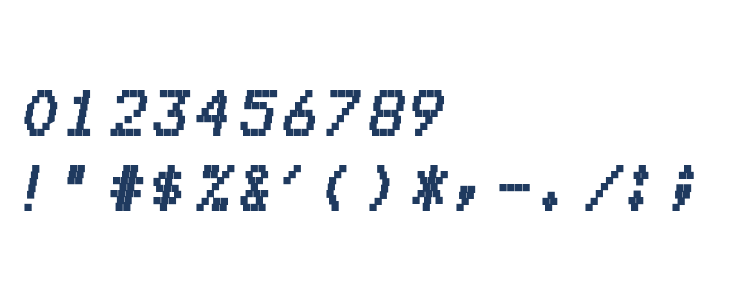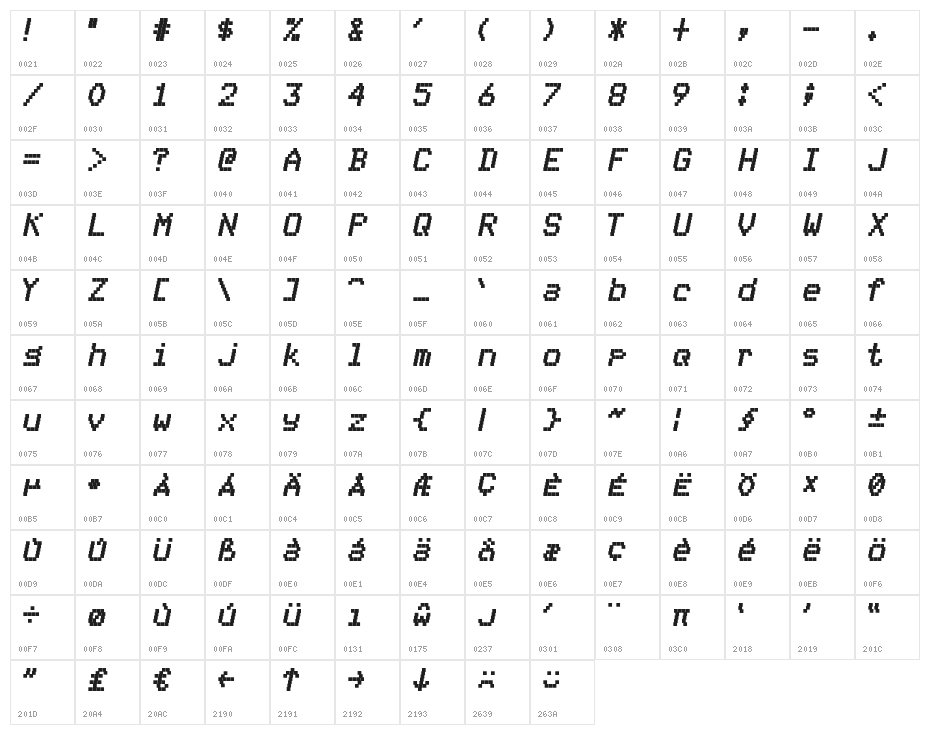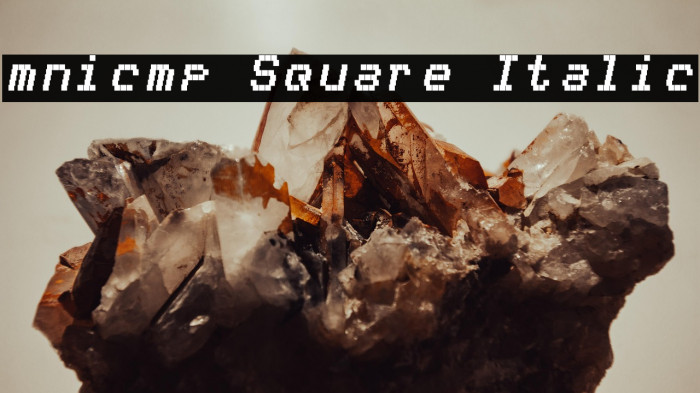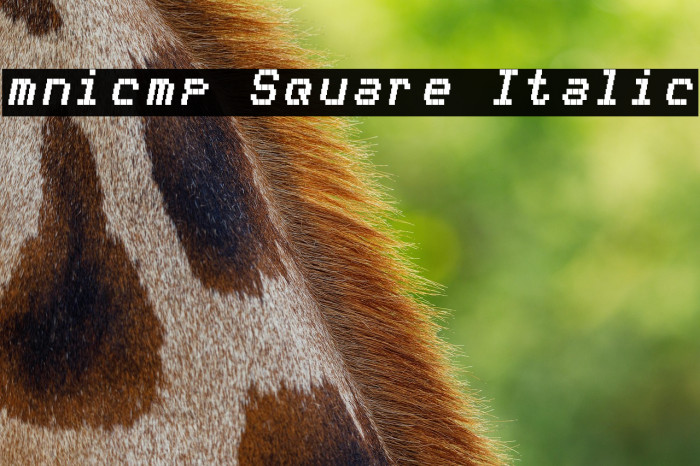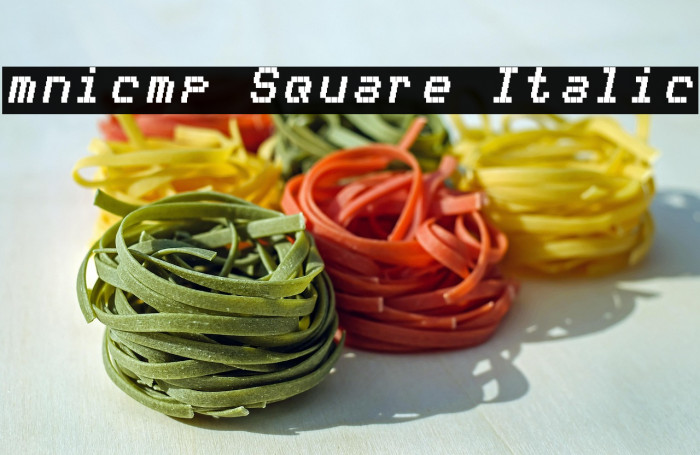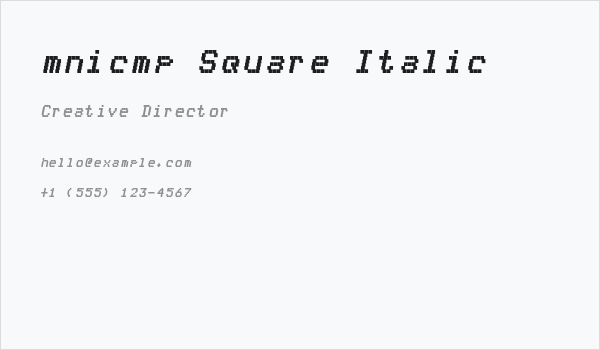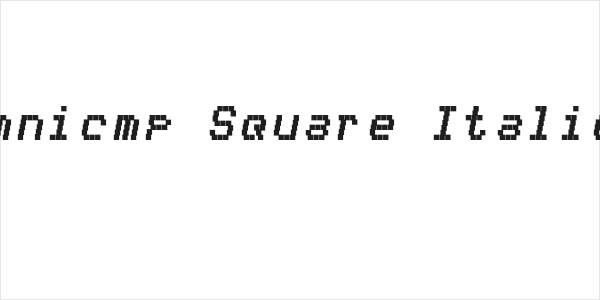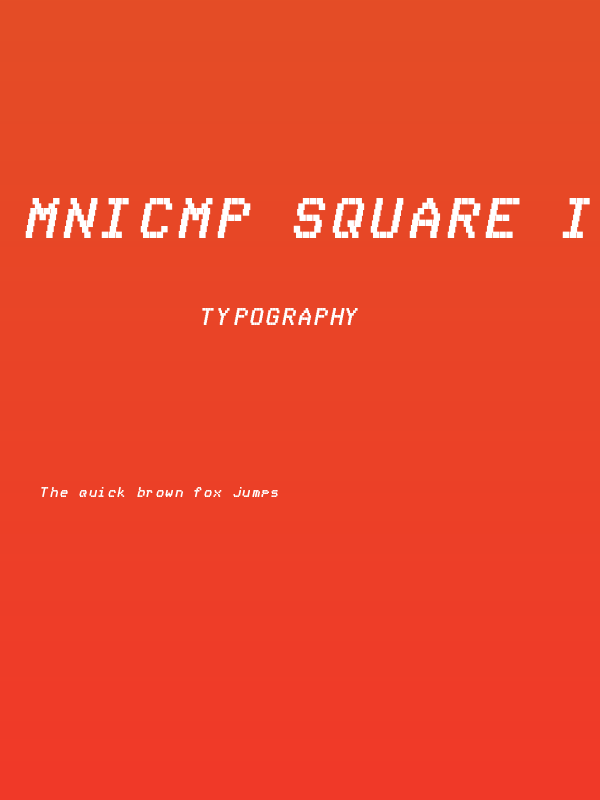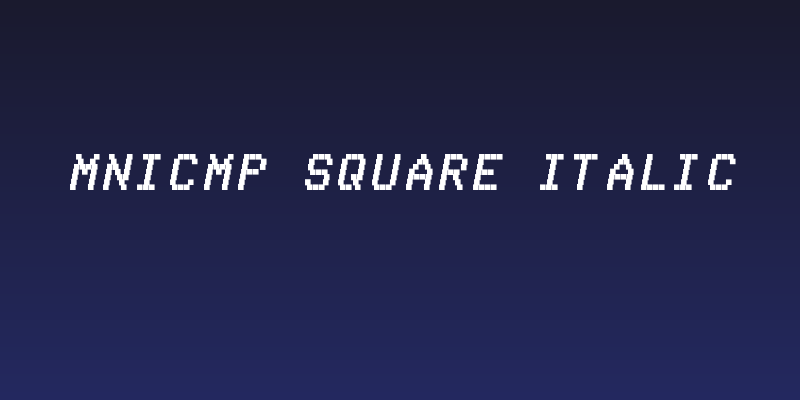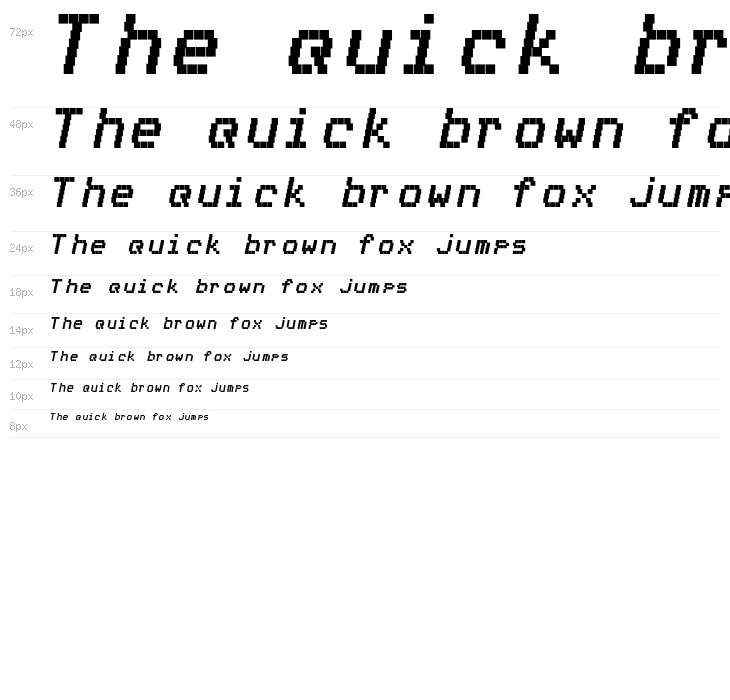
mnicmp Square Italic Font
mnicmp Square Italic Description
This font features a distinct pixelated style with a strong geometric influence, characterized by its square-shaped, blocky letters. The italic slant adds a dynamic and modern touch, making it stand out with a unique digital aesthetic. Each character is composed of uniform square pixels, creating a cohesive and structured appearance. The uppercase and lowercase letters maintain a consistent design, while the numerals and special characters complement the overall style. This font is particularly suitable for projects that require a retro or digital theme, offering a nostalgic yet contemporary feel.
| Proposed Projects | Ideal for video game design, digital art projects, retro-themed posters, and tech-related branding. |